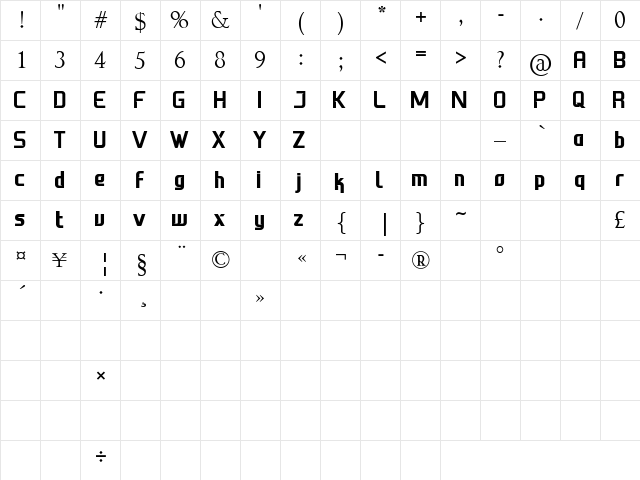
First Job Regular
Design Context for First Job Typeface
First Job offers clean, dependable letterforms without strong stylistic allegiance, making it a practical choice for designers who need flexibility.